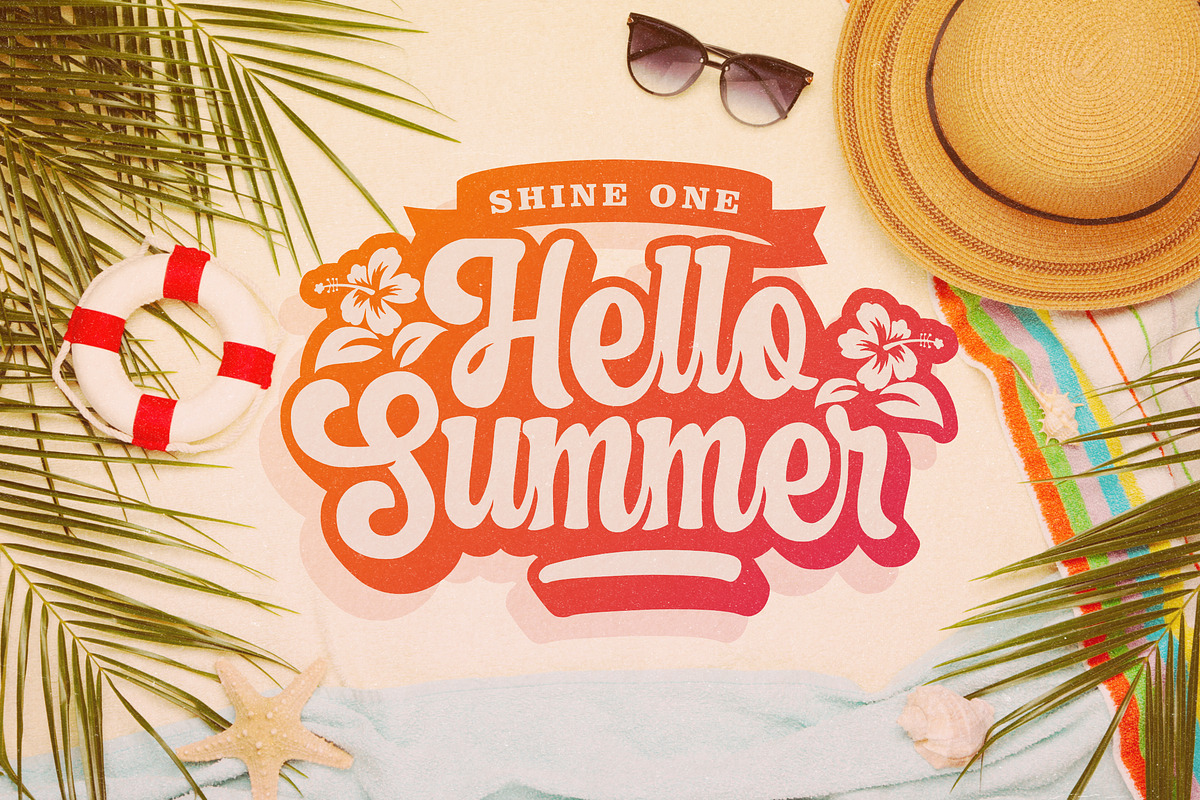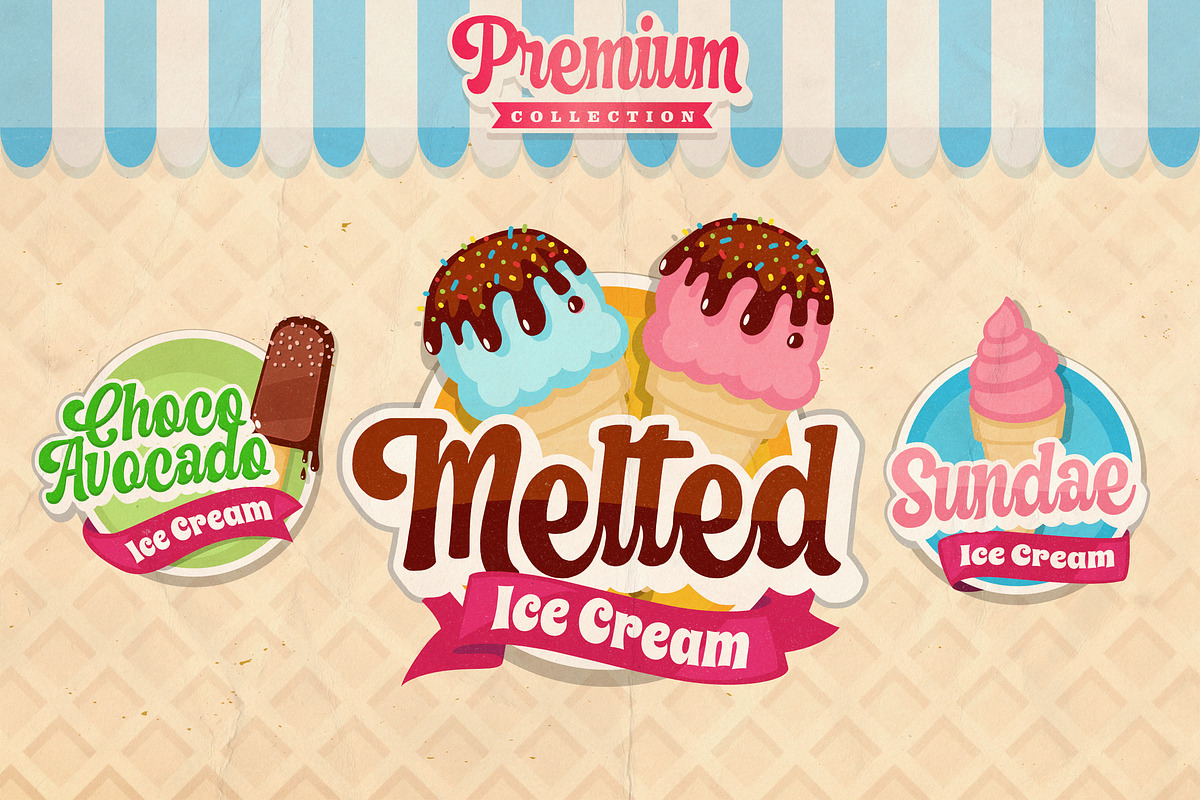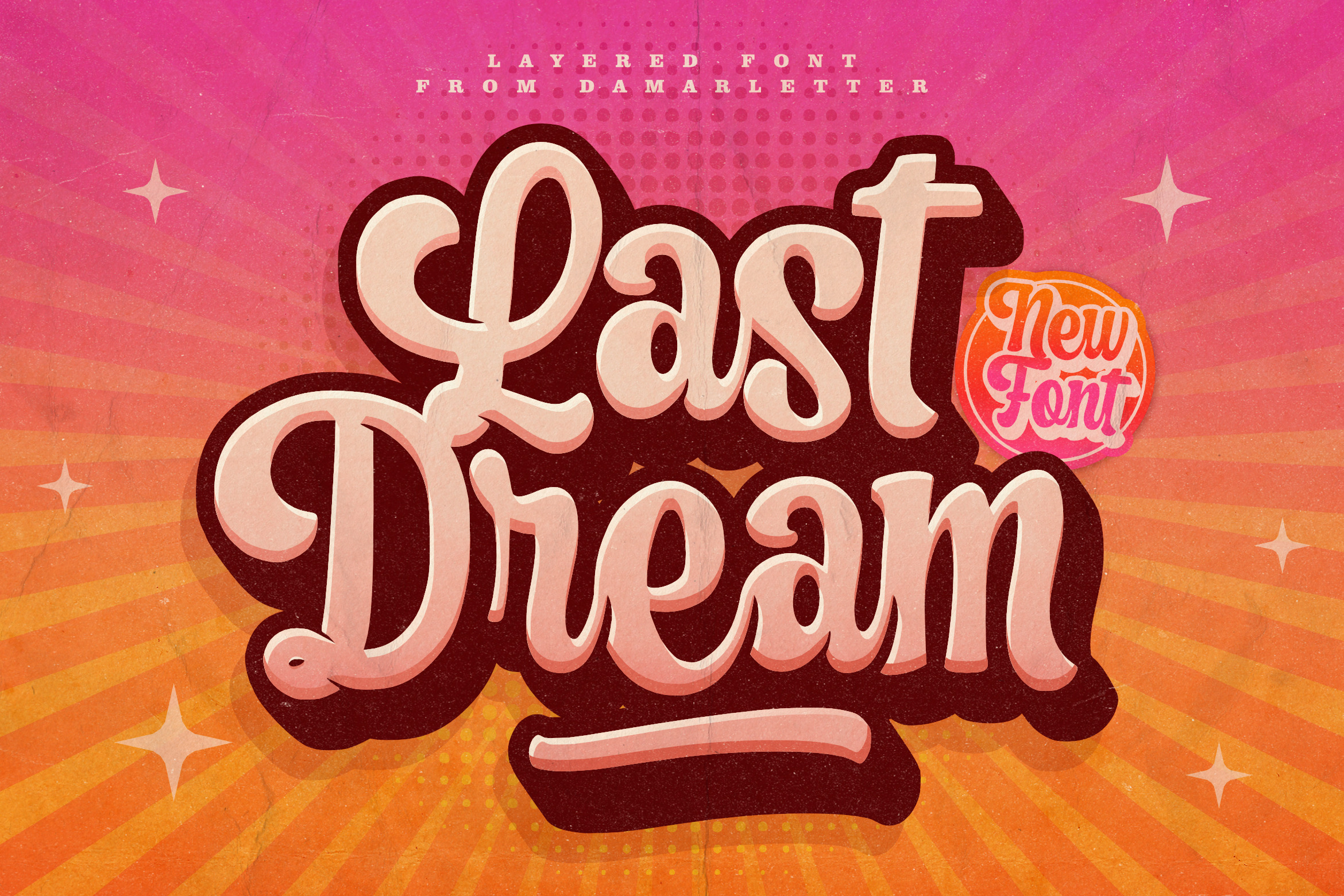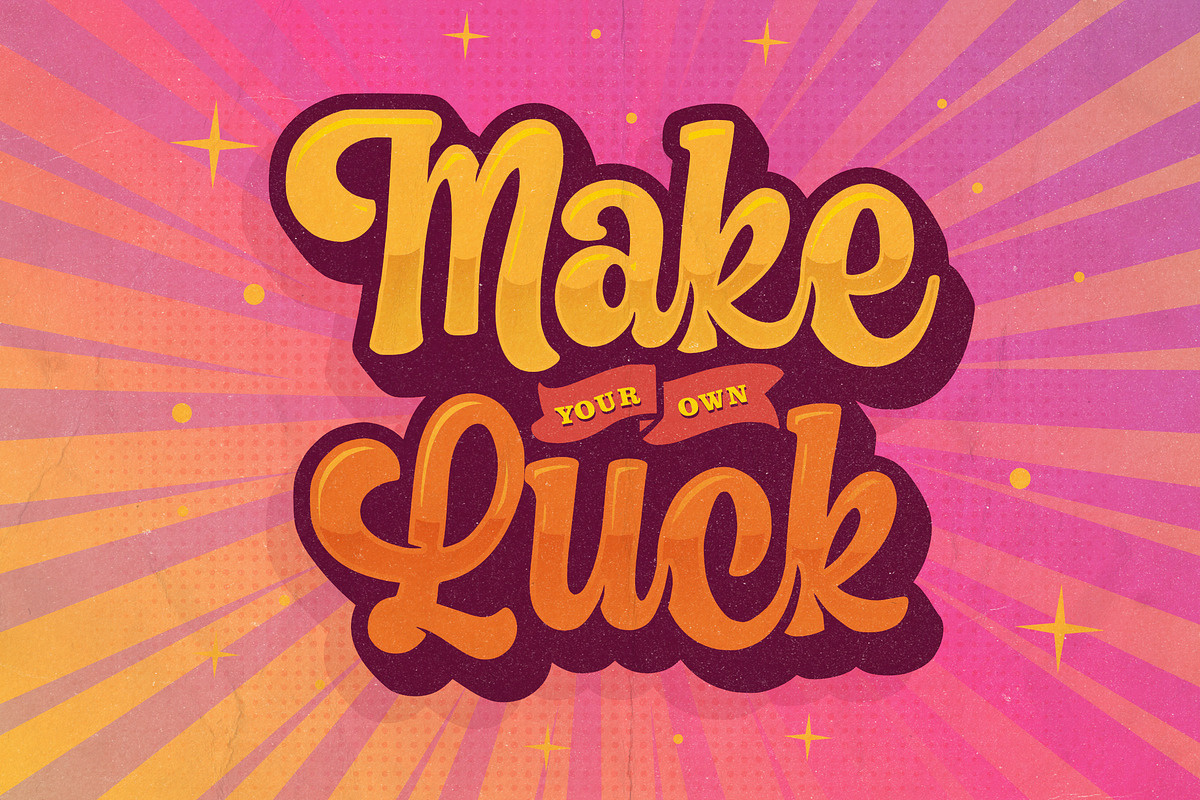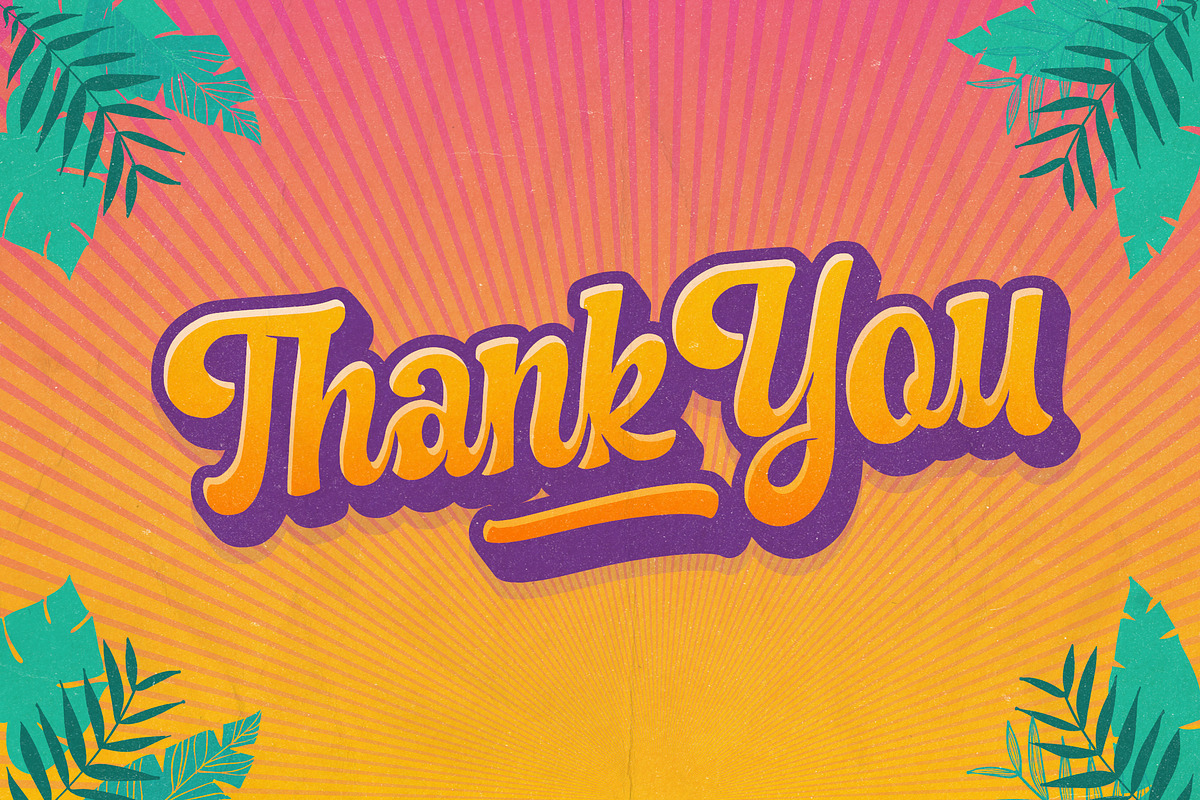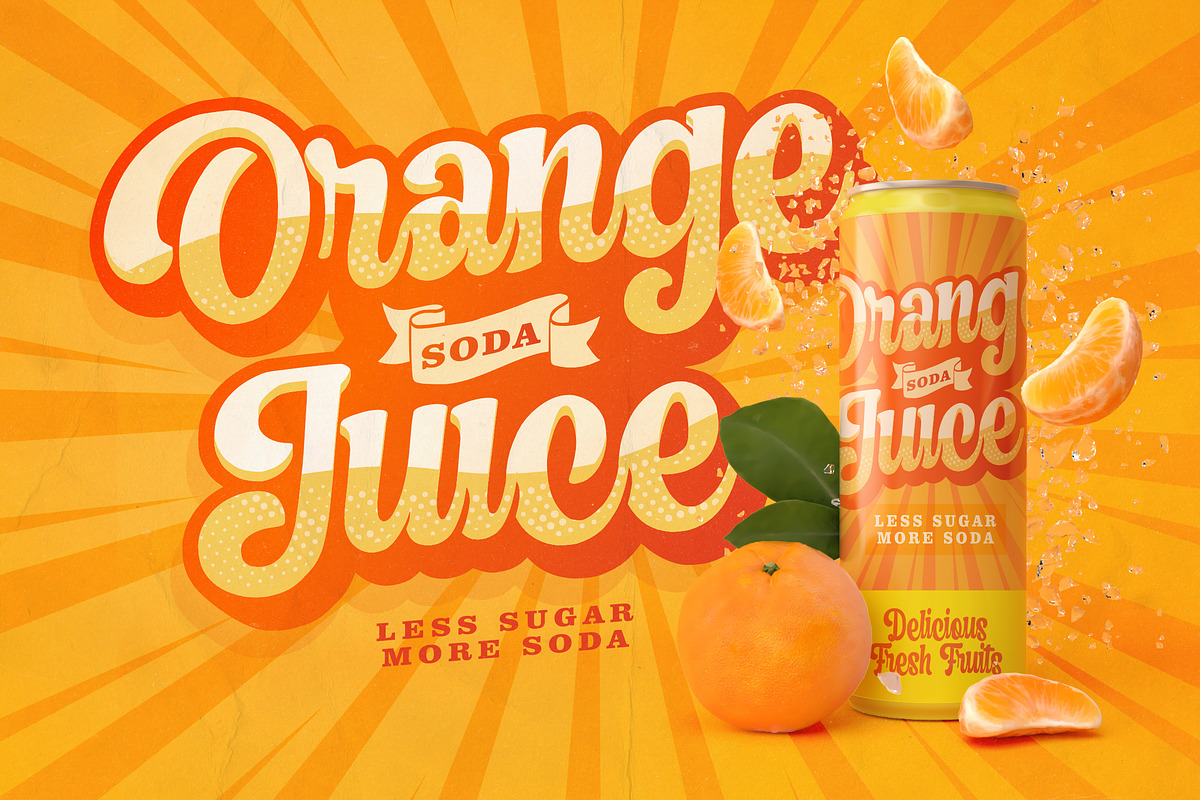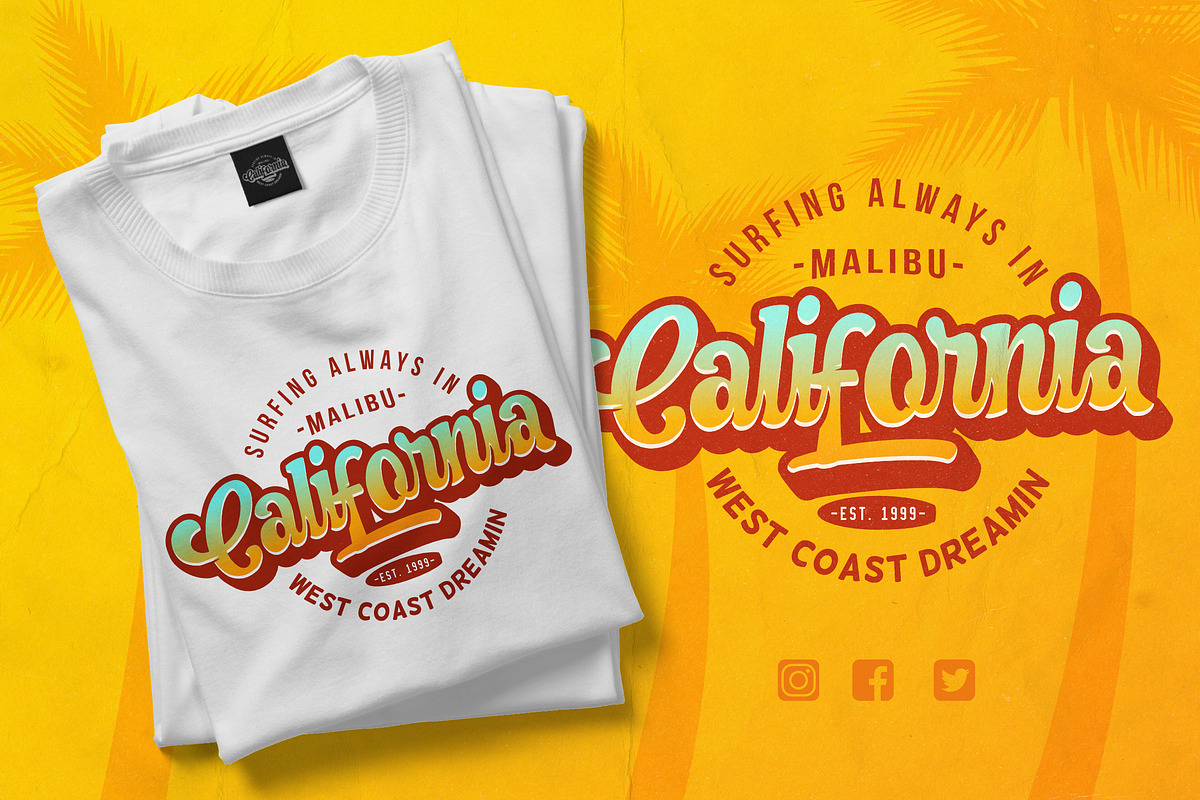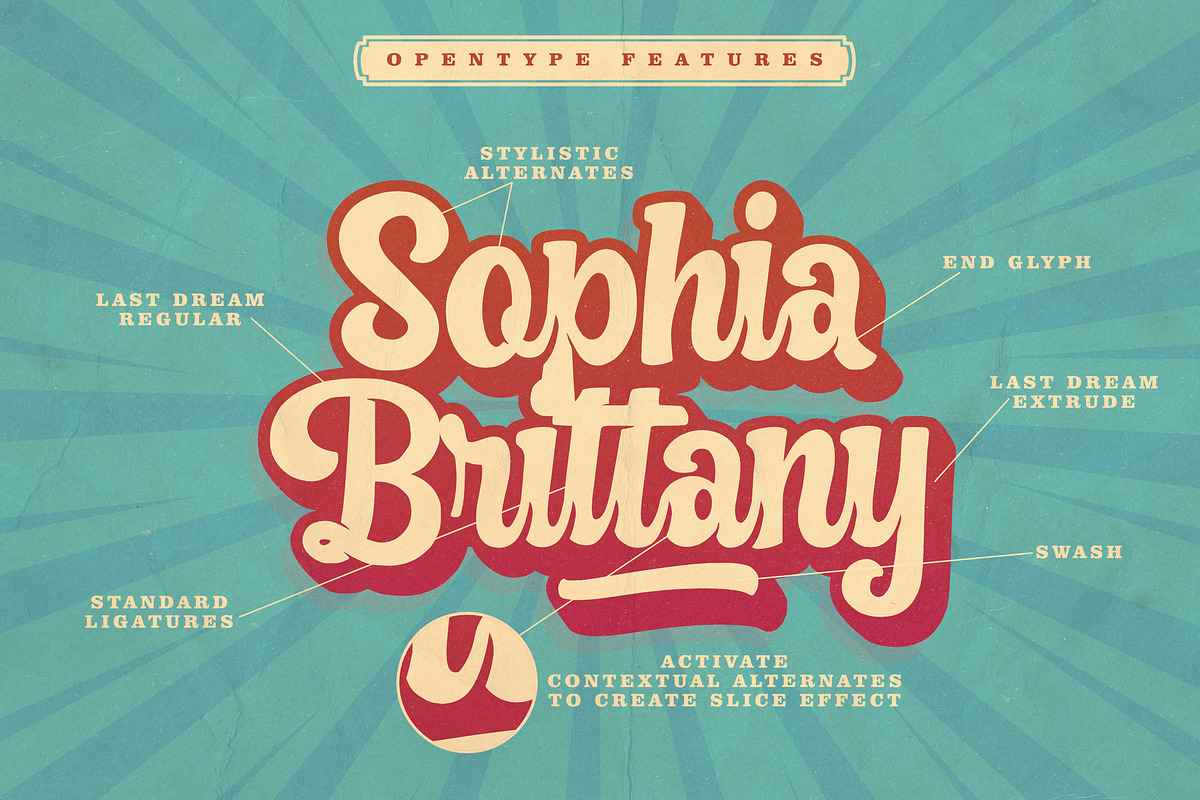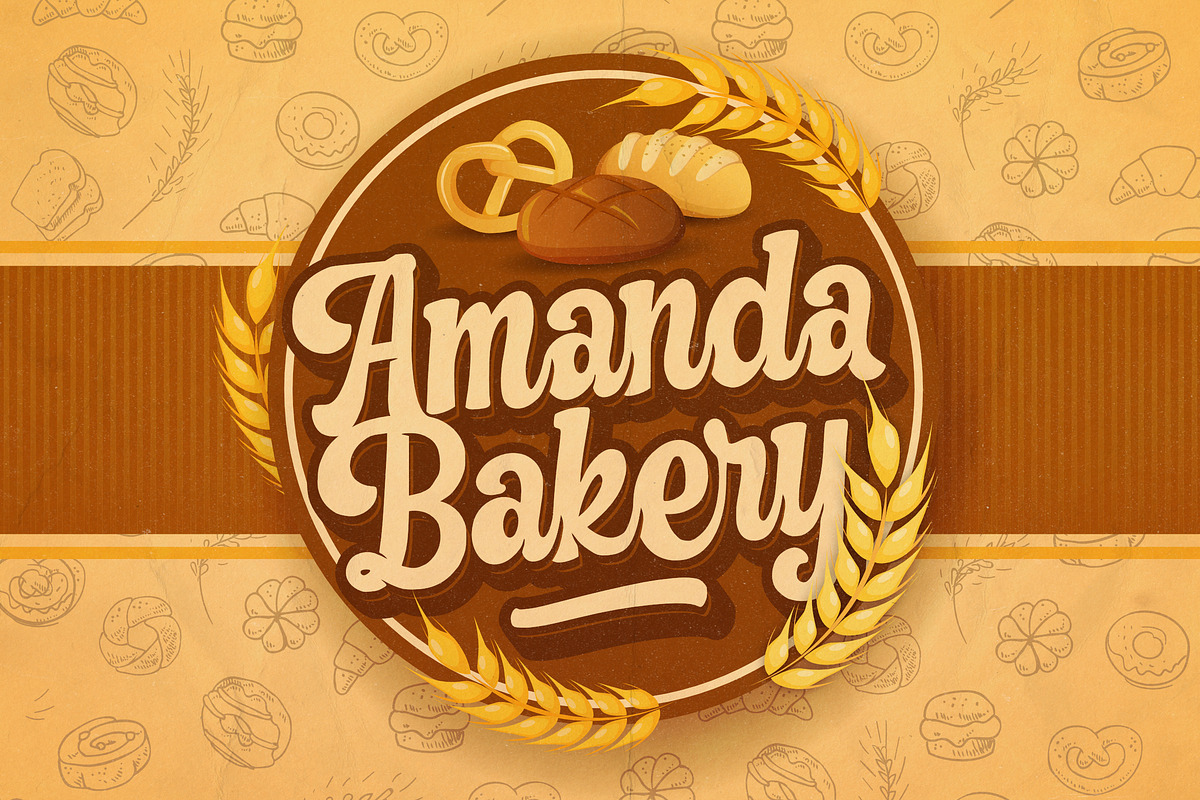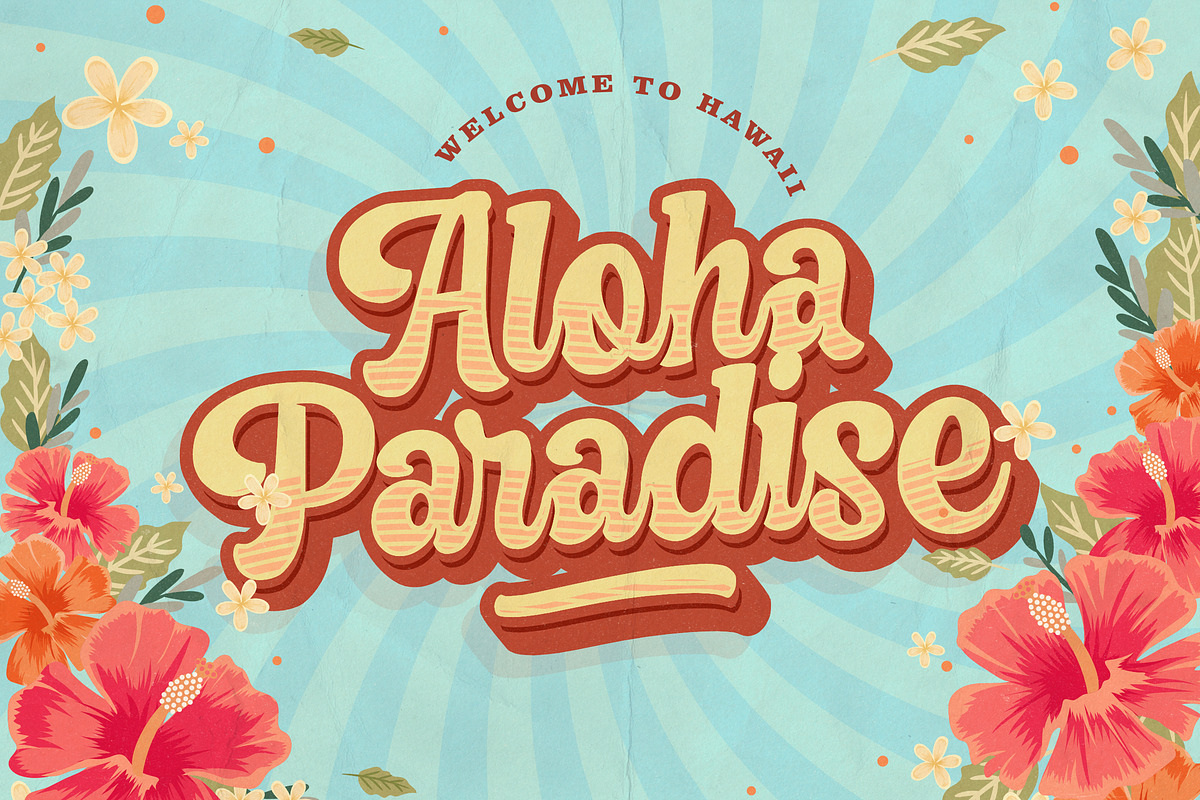
Last Dream - Layered Font
Last Dream is a bold, thick lettered, handwritten font. Vintage styled and strong lettered, this font makes this font look lovely on a variety of designs.